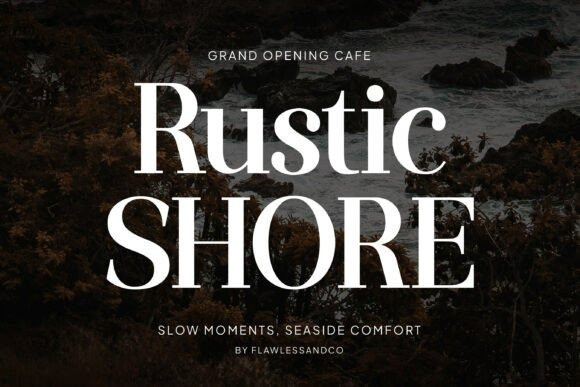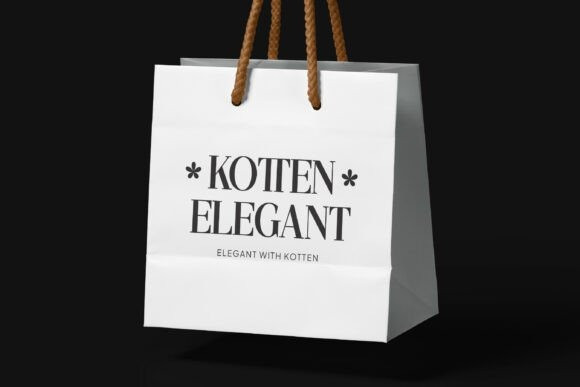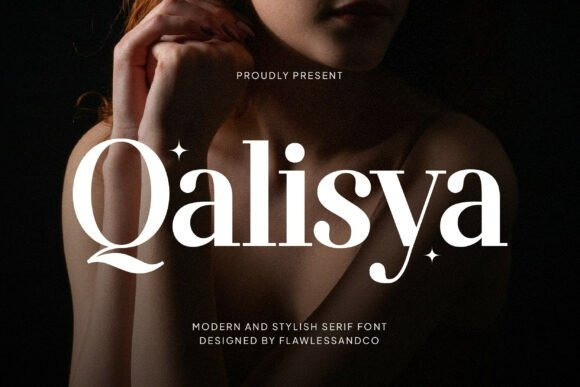
Qalisya Font
Qalisya Font is a modern and stylish serif font that beautifully combines elegance with contemporary design. Crafted with refined details and graceful letterforms, this typeface brings a sophisticated and luxurious feel to any creative project.Qalisya is the ideal choice for designers who seek a serif font that feels both modern and effortlessly stylish.